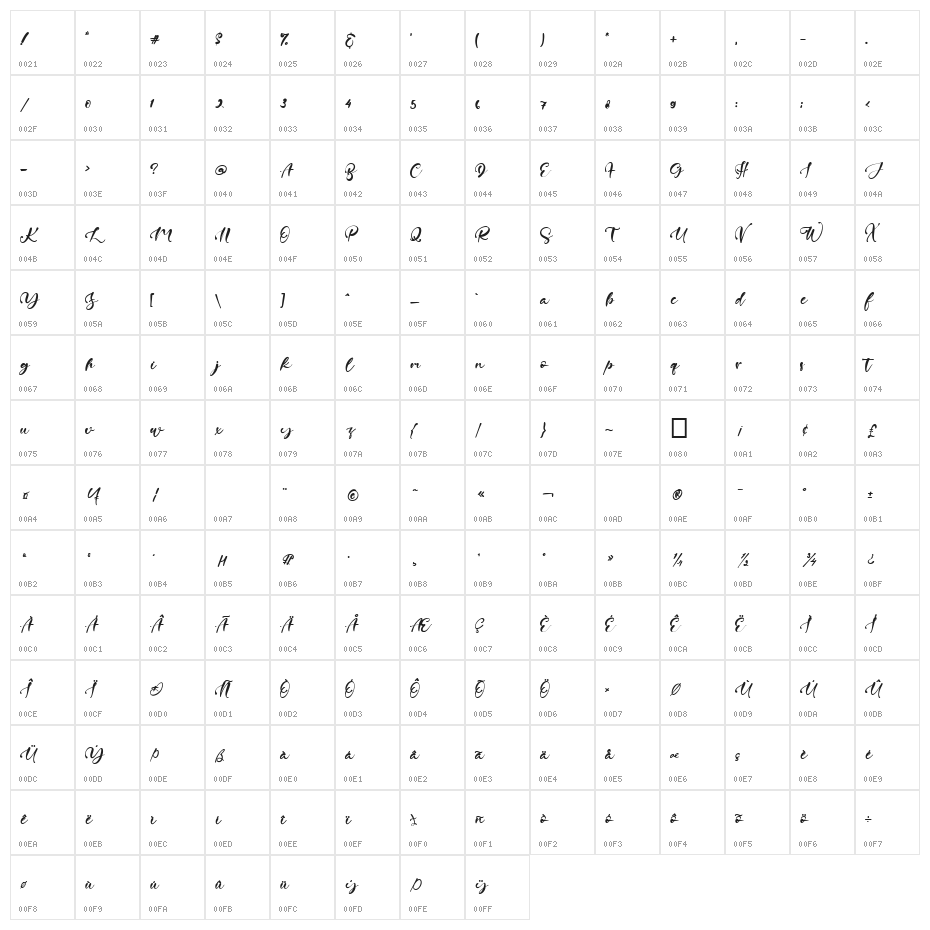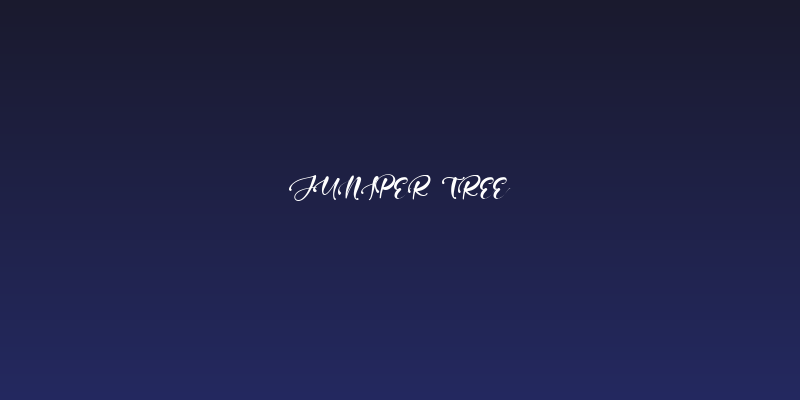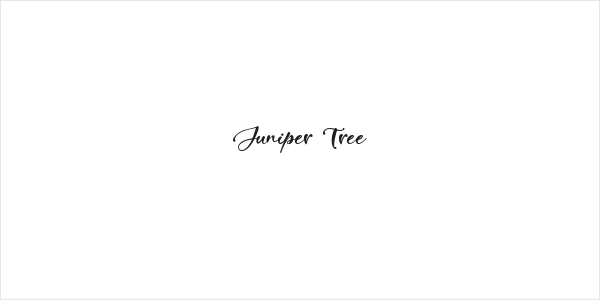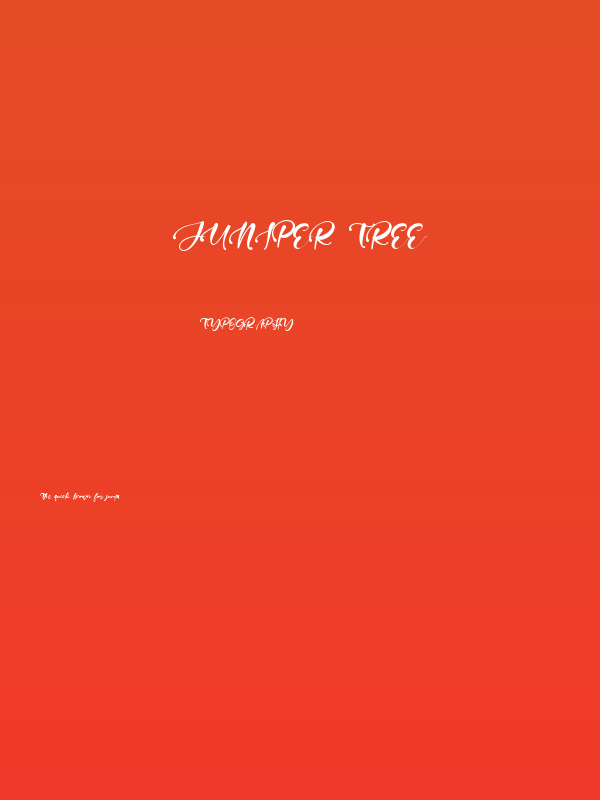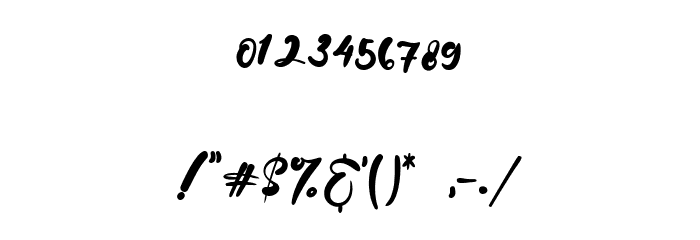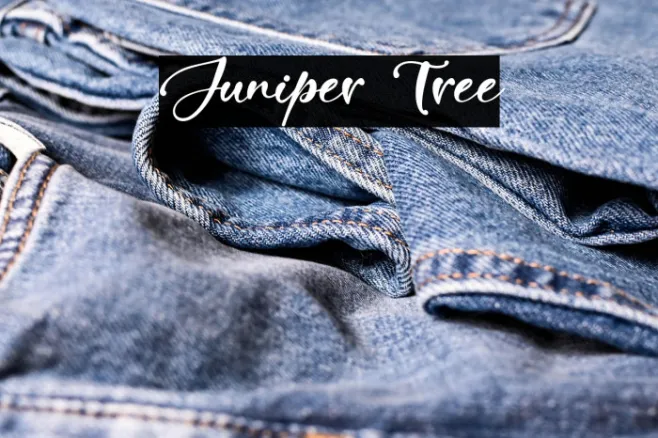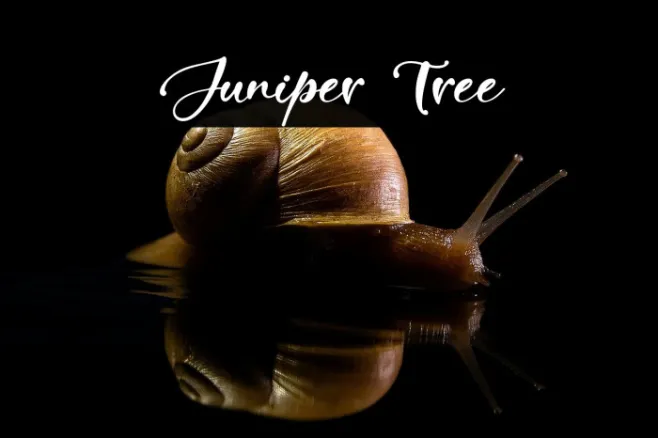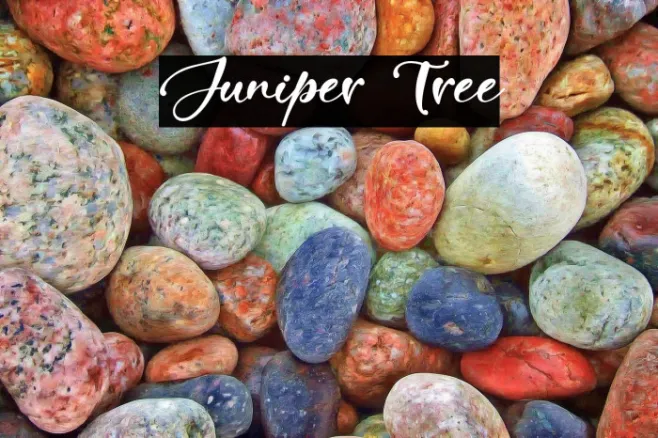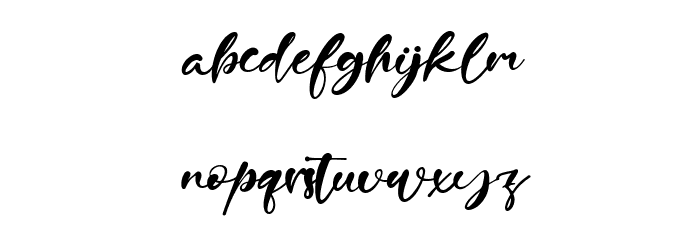
Juniper Tree Font
Juniper Tree Description
This font features an elegant and flowing script style, characterized by its smooth, cursive letterforms that exude a sense of sophistication and grace. The uppercase letters are particularly ornate, with sweeping curves and flourishes that add a decorative touch. The lowercase letters maintain a consistent flow, enhancing readability while retaining the font's artistic flair. The numerals are styled to match the overall aesthetic, ensuring a cohesive look across all characters. Special characters are included, designed with the same attention to detail, making this font versatile for various applications.
| Use Case | Logos, Invitations, Decorative Text |
| Proposed Projects | Ideal for wedding invitations, elegant branding, greeting cards, and decorative signage. |